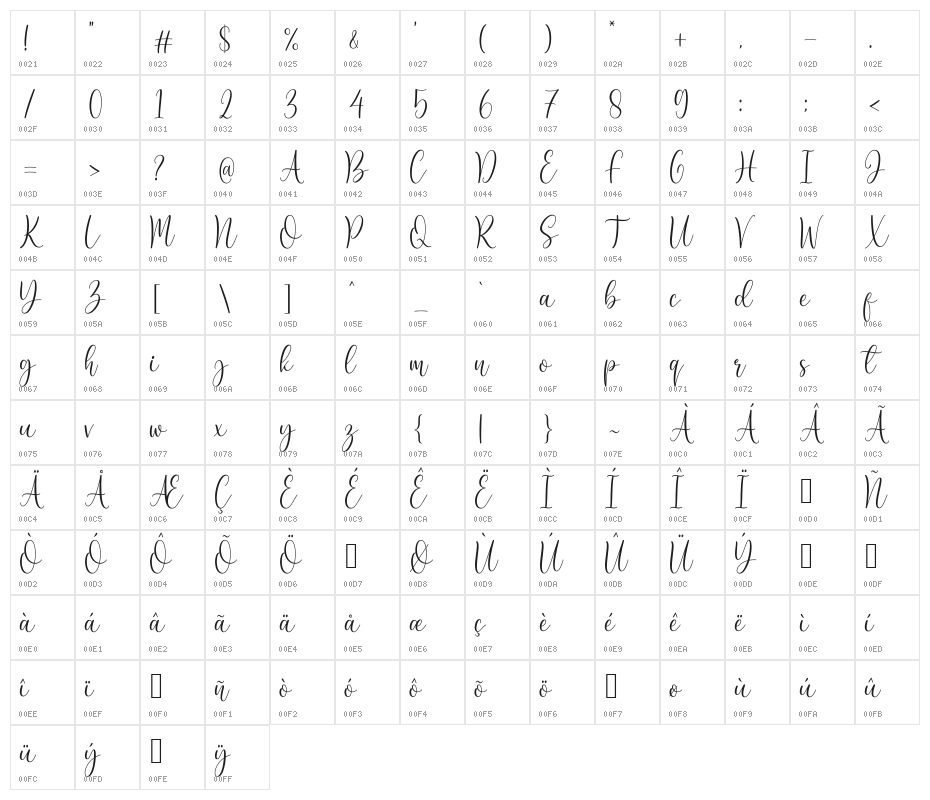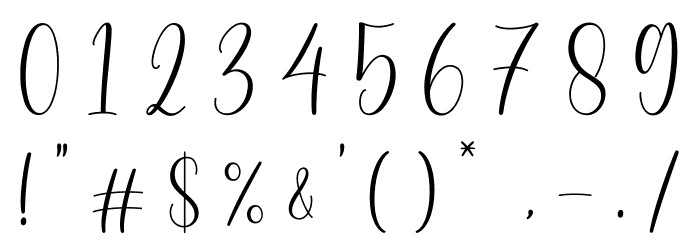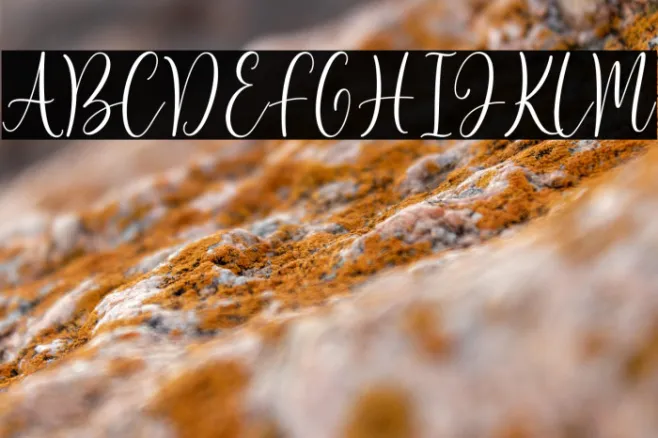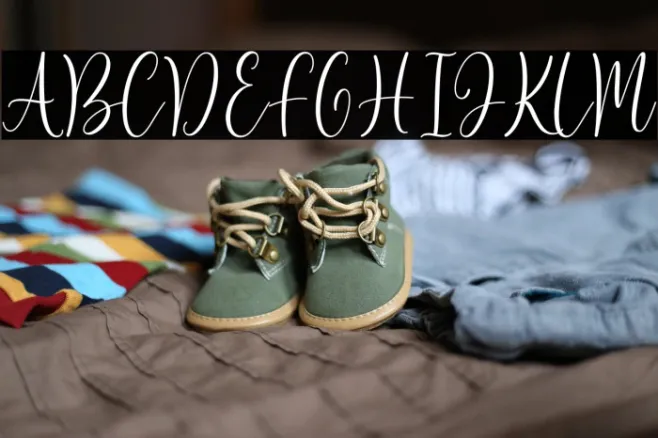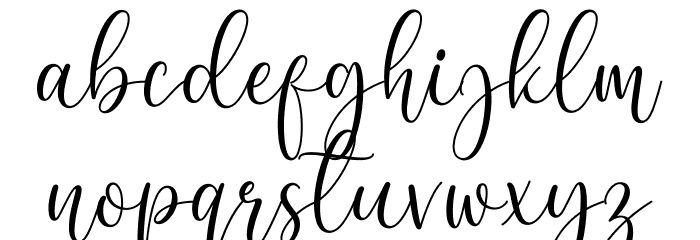
Rebeca Font
Rebeca Description
This elegant script font features a flowing, cursive style with a modern twist. The uppercase letters are tall and graceful, with sweeping curves and delicate loops that give a sense of fluidity and movement. The lowercase letters maintain a consistent style, with rounded forms and smooth connections between characters. The numerals are similarly styled, with a slight slant and a playful touch. Special characters are well-integrated, maintaining the overall aesthetic. This font exudes a sense of sophistication and charm, making it ideal for projects that require a personal, handwritten touch.
| Proposed Projects | Wedding invitations, greeting cards, branding, and logo design. |